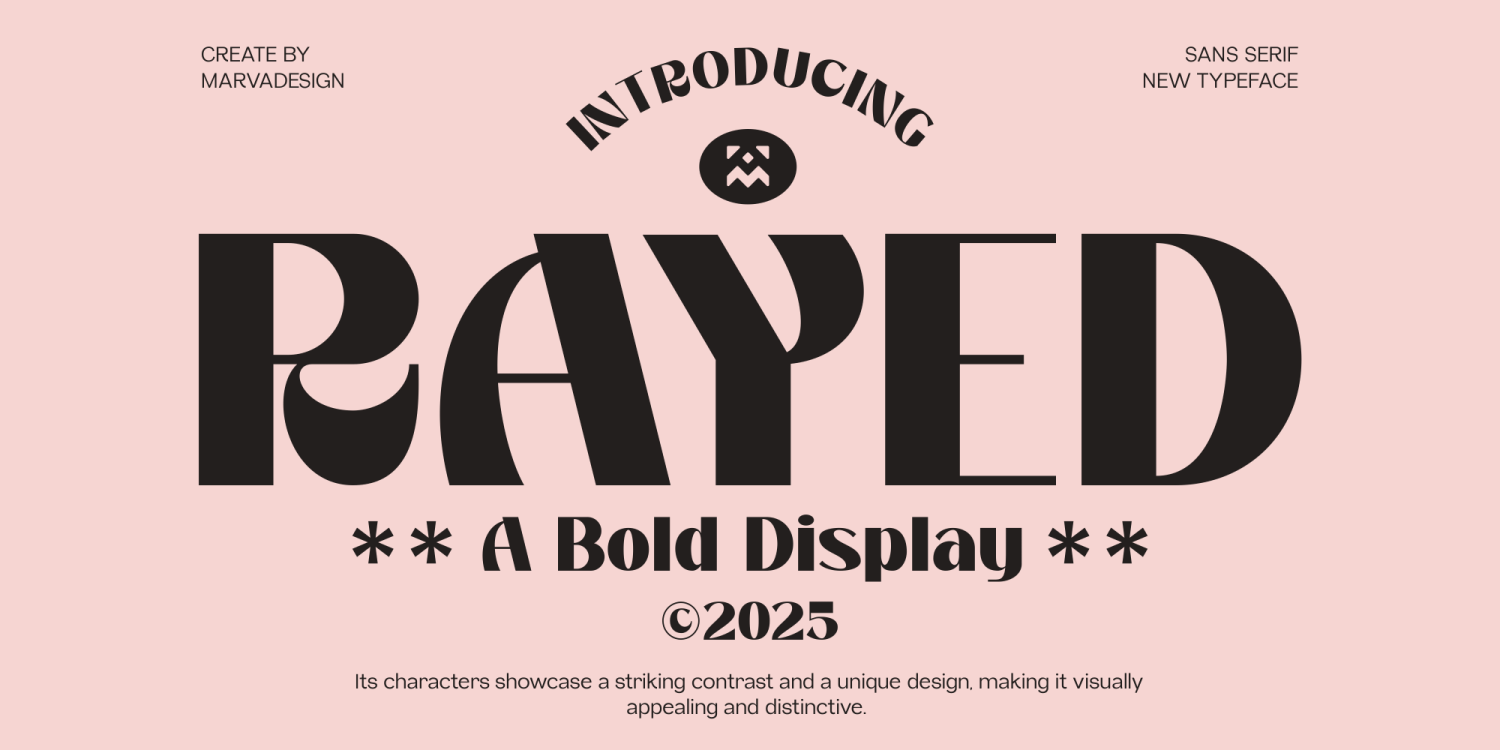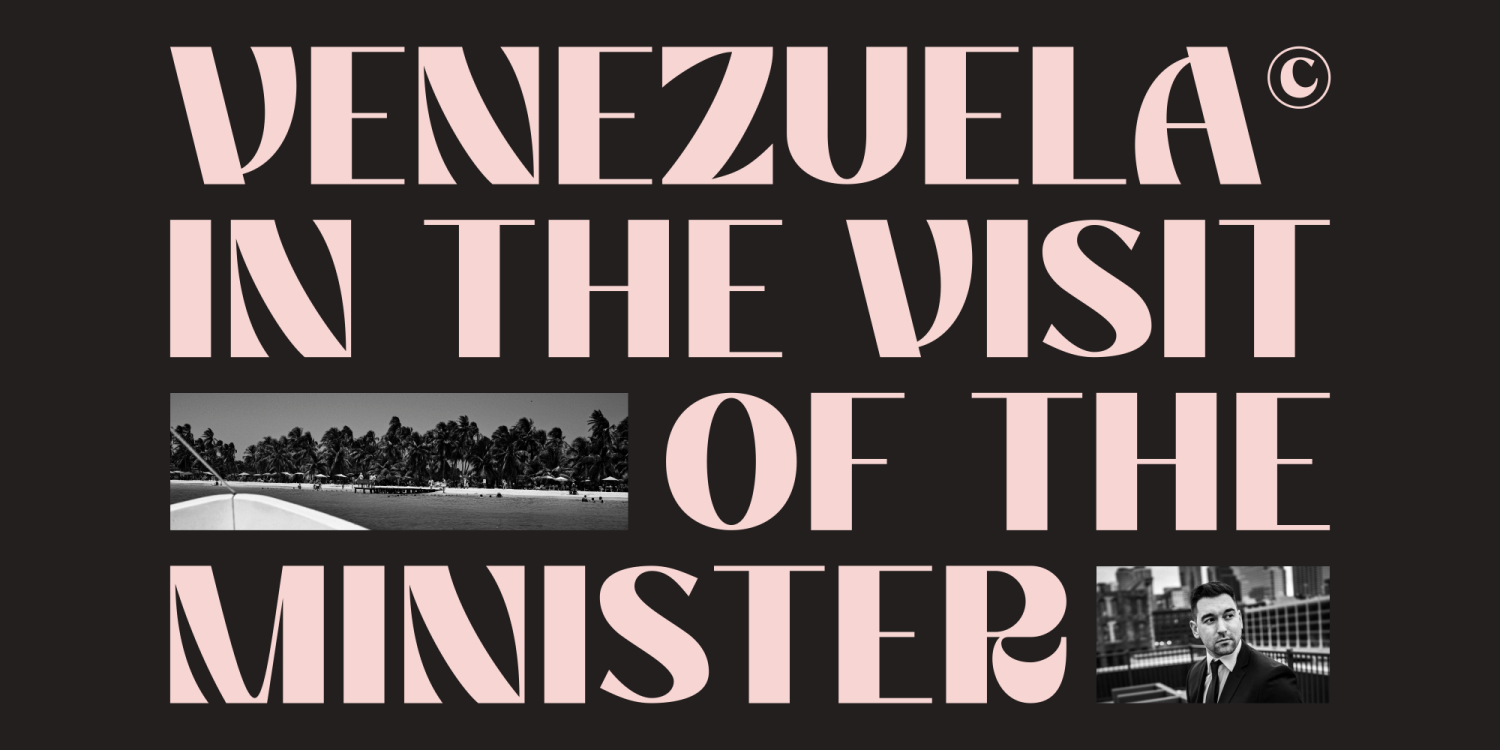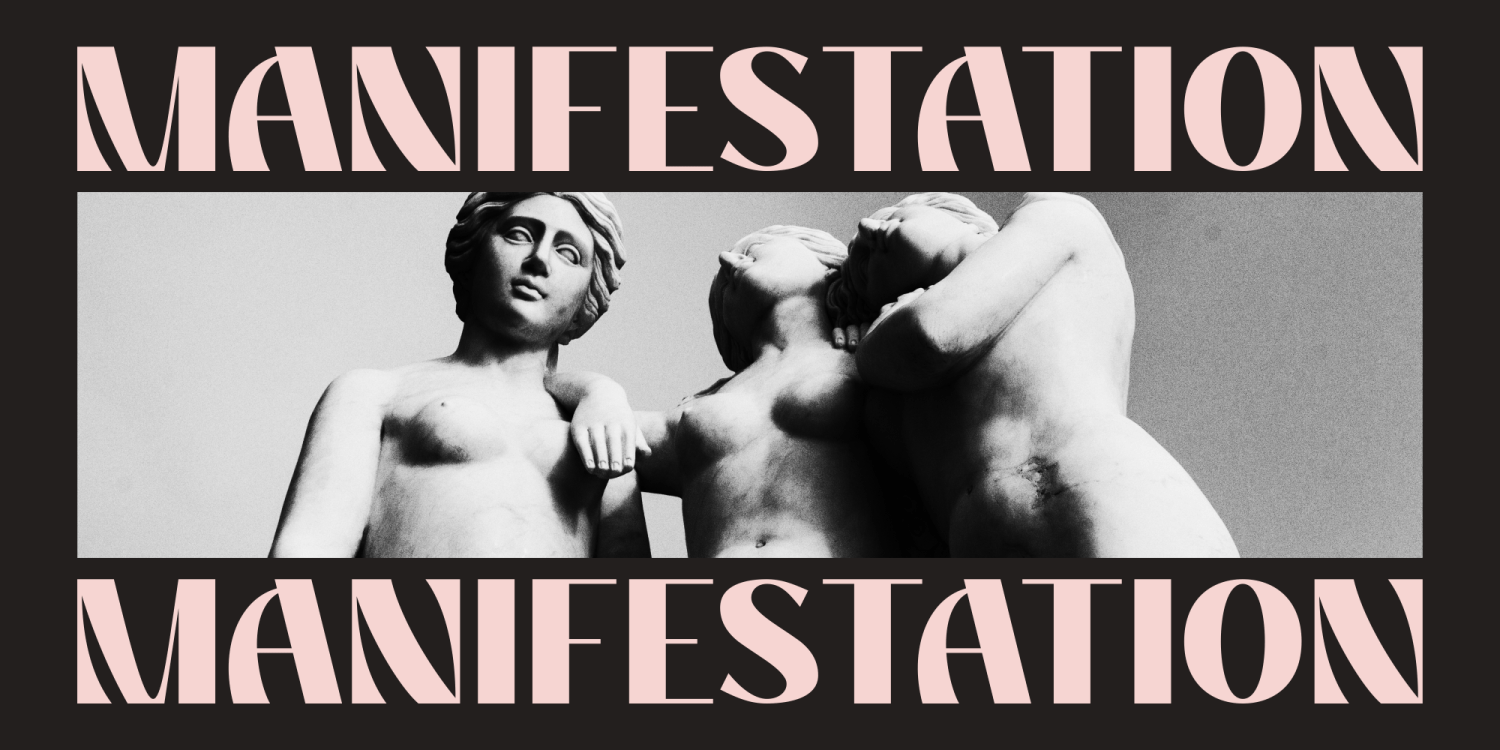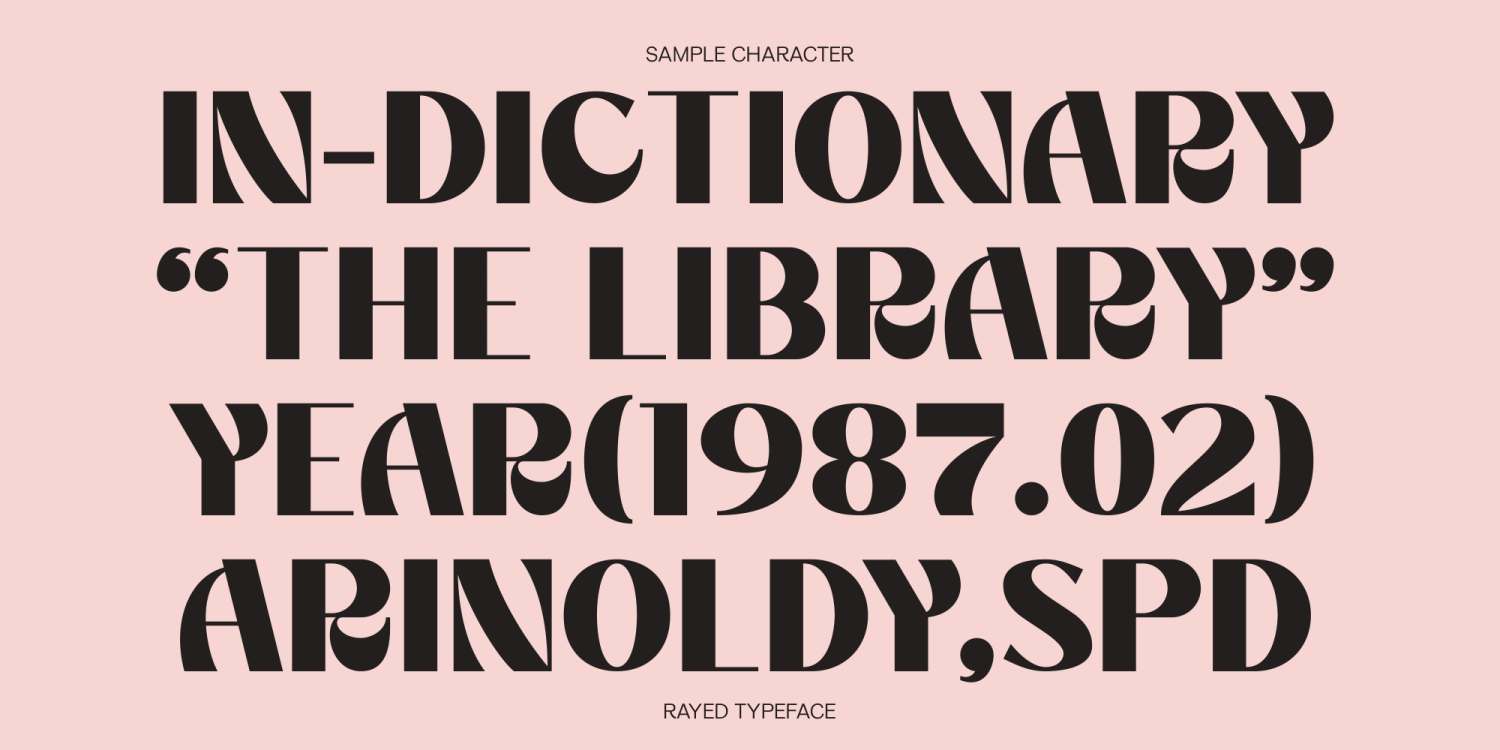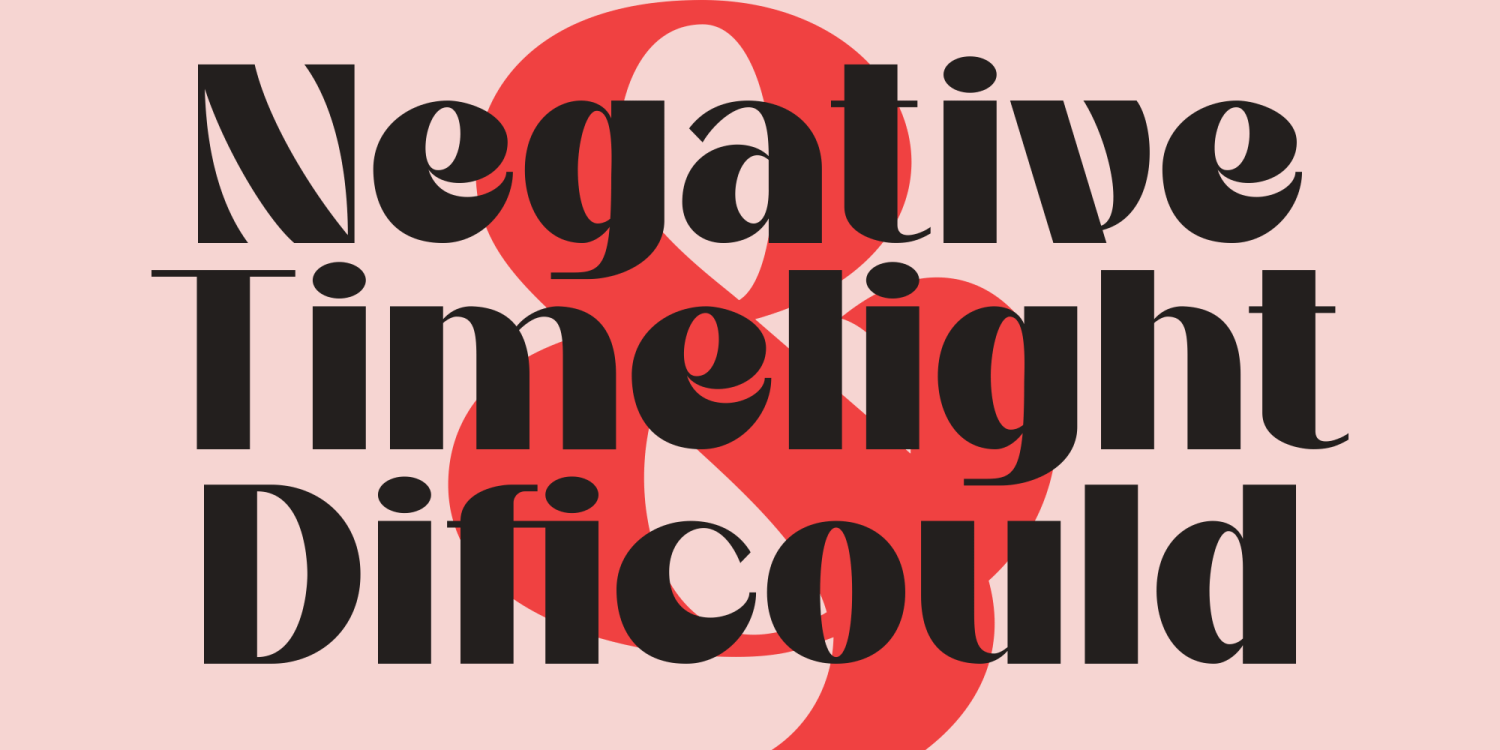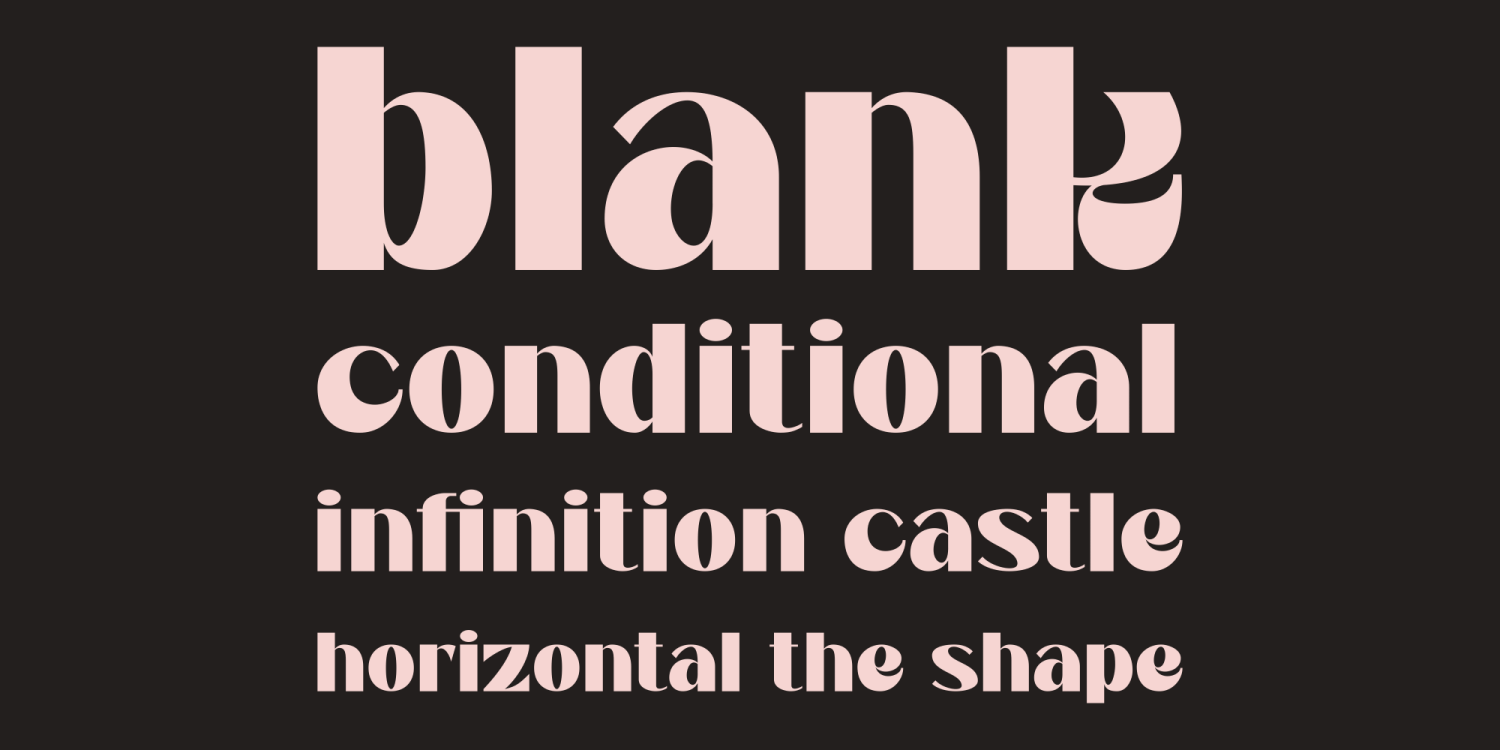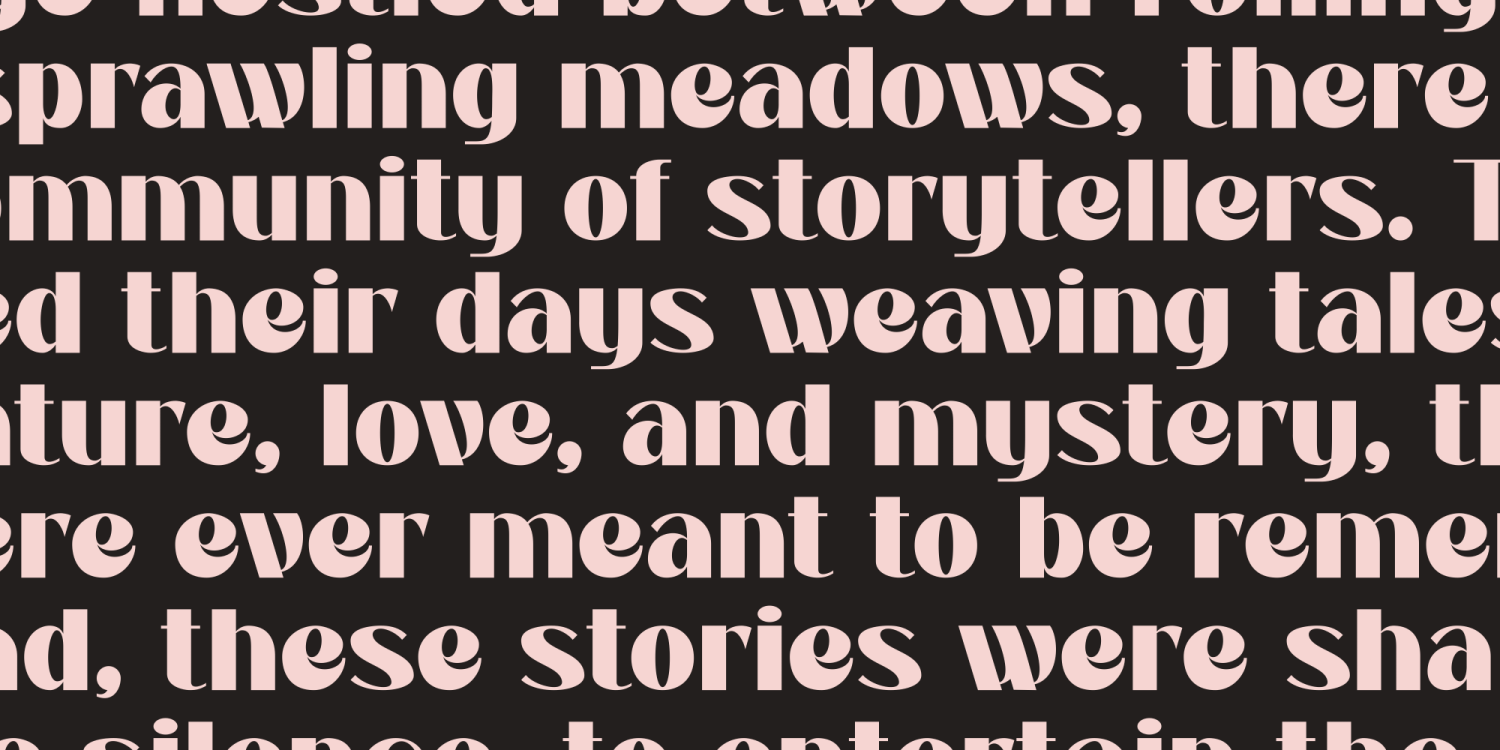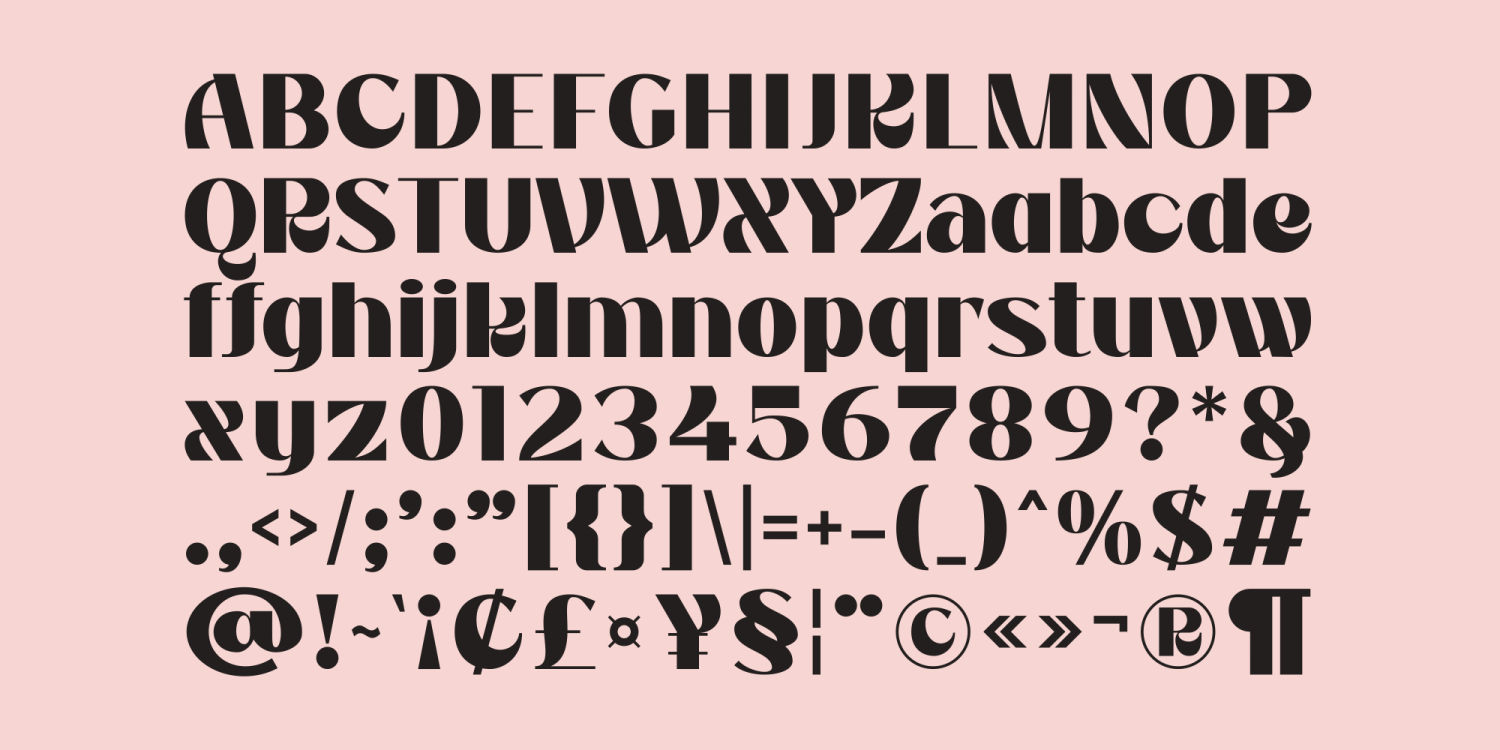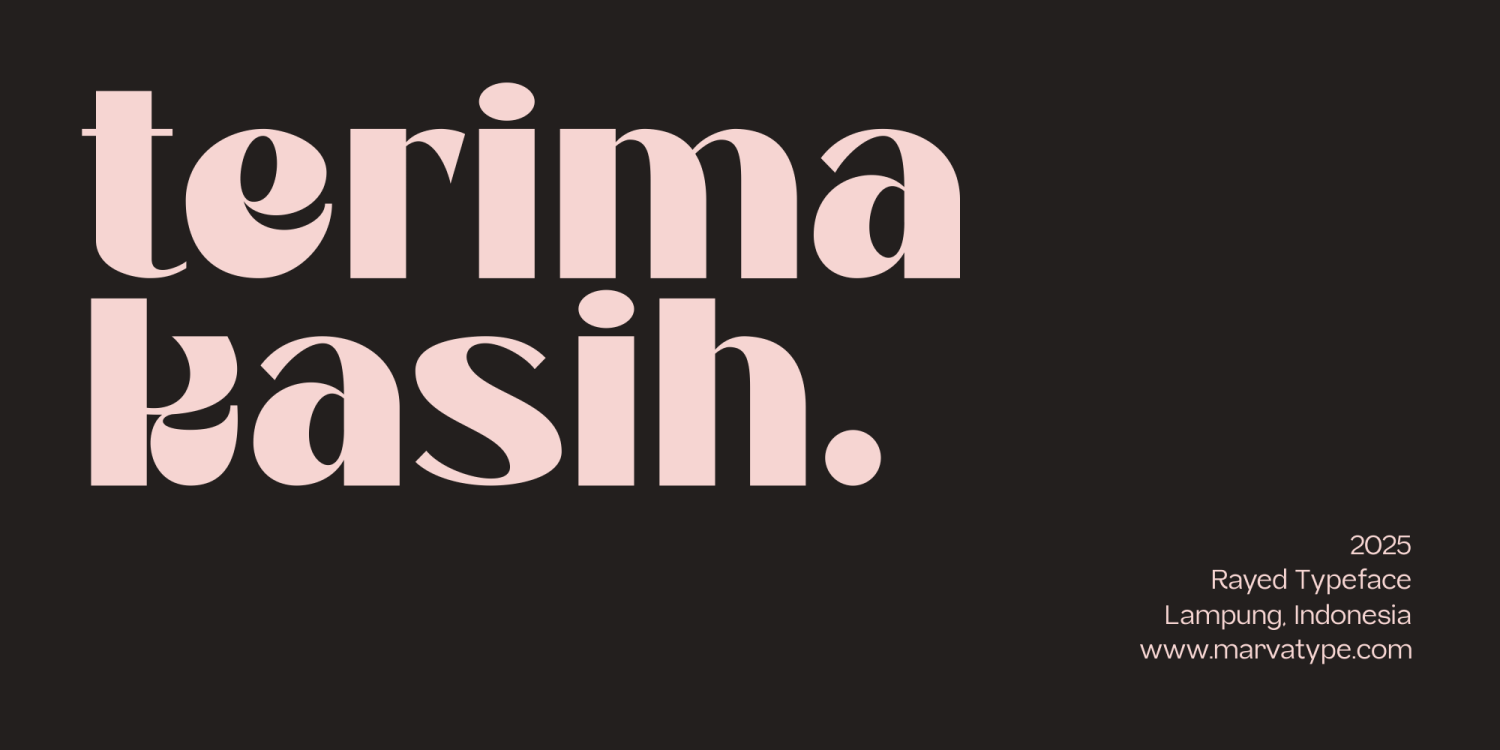
Rayed
Font Family by Marvadesign
Rayed is a bold display typeface infused with distinctive sans-serif elements, offering a striking contrast that captures attention. Its unique character design ensures visual appeal, setting it apart in the world of typography. Perfectly crafted for versatility, Rayed excels in both uppercase and lowercase formats, making it an ideal choice for a wide range of design applications. Whether used in branding, headlines, or creative projects, this font provides a strong visual impact.
The Rayed typeface's versatility allows designers to explore creative possibilities across various mediums. Its bold structure ensures that every letter stands out, making it suitable for projects that demand attention-grabbing typography. By integrating both traditional sans-serif and bold display elements, Rayed enhances aesthetic appeal, making it a valuable addition to any designer's toolkit.